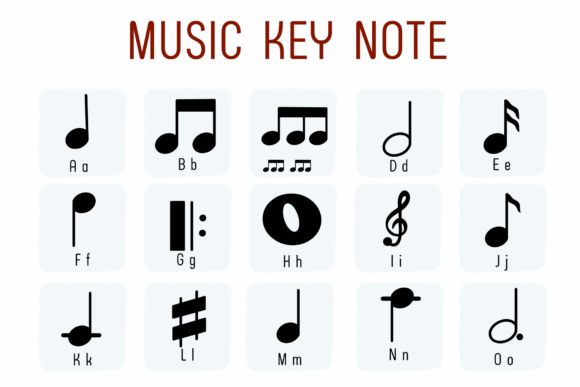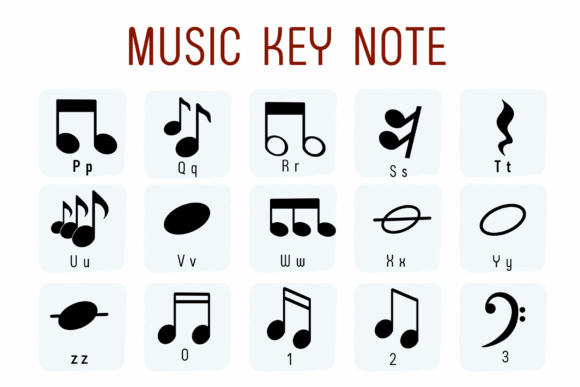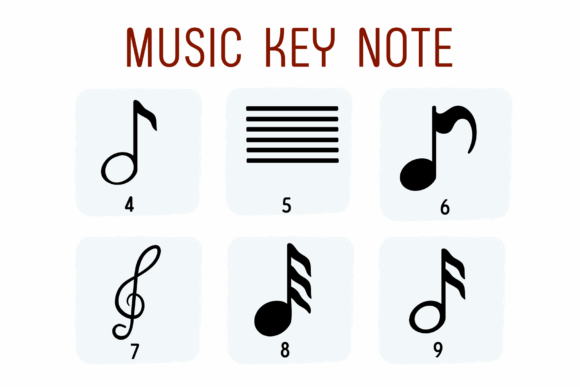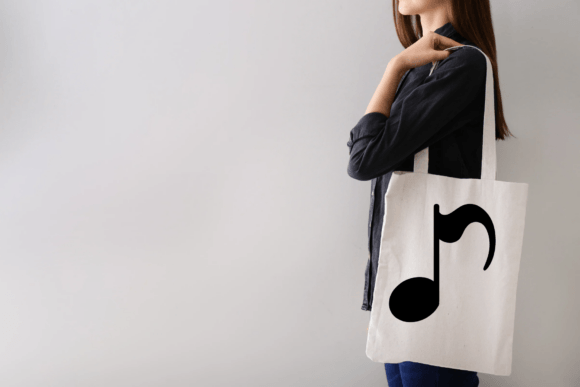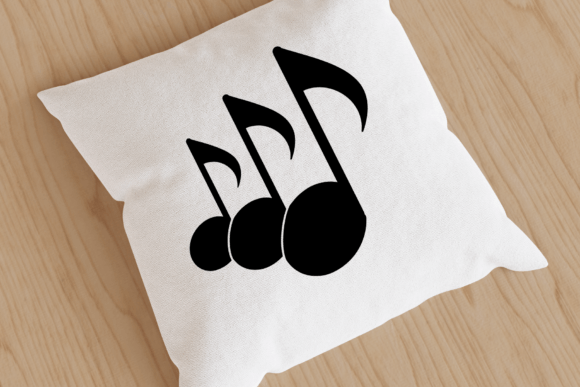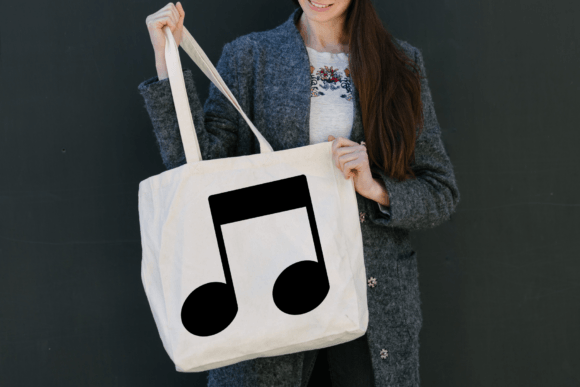
Introduction to Music Key Note Font
Have you ever stumbled upon a font that perfectly captures the essence of your creative vision? For me, that moment was when I discovered the Music Key Note Font. Its whimsical notes and staffs transported me to a world of artistic expression, where the boundaries of creativity knew no limits.
As a designer, I know how valuable it is to have a unique design resource that can elevate your projects to the next level. That’s exactly what the Music Key Note Font offers – a high-quality font that can add a touch of elegance and sophistication to your creative endeavors. Whether you’re working on a wedding invitation, a DIY project, or a logo design, this font is sure to impress.
Key Features of Music Key Note Font
- High-quality, professional design for music-related projects and creative work
- Transparent background option for easy integration into various backgrounds and designs
- Includes a range of musical notes, symbols, and other relevant characters for comprehensive music notation
- Designed with a clear, legible, and aesthetically pleasing style, suitable for various font sizes and resolutions
Honest Review: Music Key Note Font
I recently had the chance to work with the Music Key Note Font in a creative project, and I was excited to see how it would perform. Overall, I was quite impressed with this design resource.
- High quality design that’s perfect for music-related projects ✨
- Well-suited for a variety of creative projects, from posters to album covers ✨
- Some users may find the font a bit too decorative, which can make it difficult to read at small sizes ⚠️
- Limited character set, which may not be suitable for longer texts or complex layouts ⚠️
Overall, I was pleasantly surprised by the Music Key Note Font. While it’s not perfect, it’s a great addition to any designer’s toolkit, especially for music-related projects. With a little creativity and planning, you can achieve some amazing results with this design resource.
The Music Key Note Font is commonly used in music-related projects, such as album artwork, concert posters, and music blogs. It’s also used in creative projects that require a unique and eye-catching font, such as fashion design, advertising, and art projects.